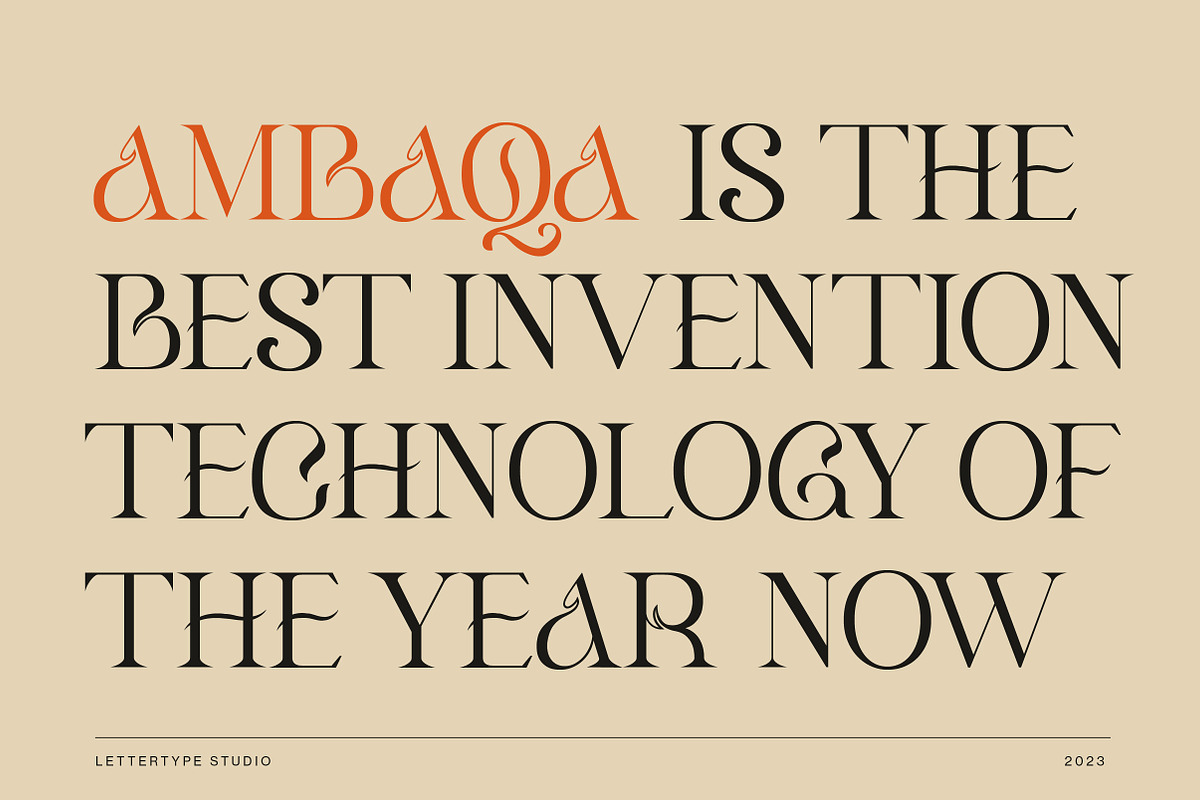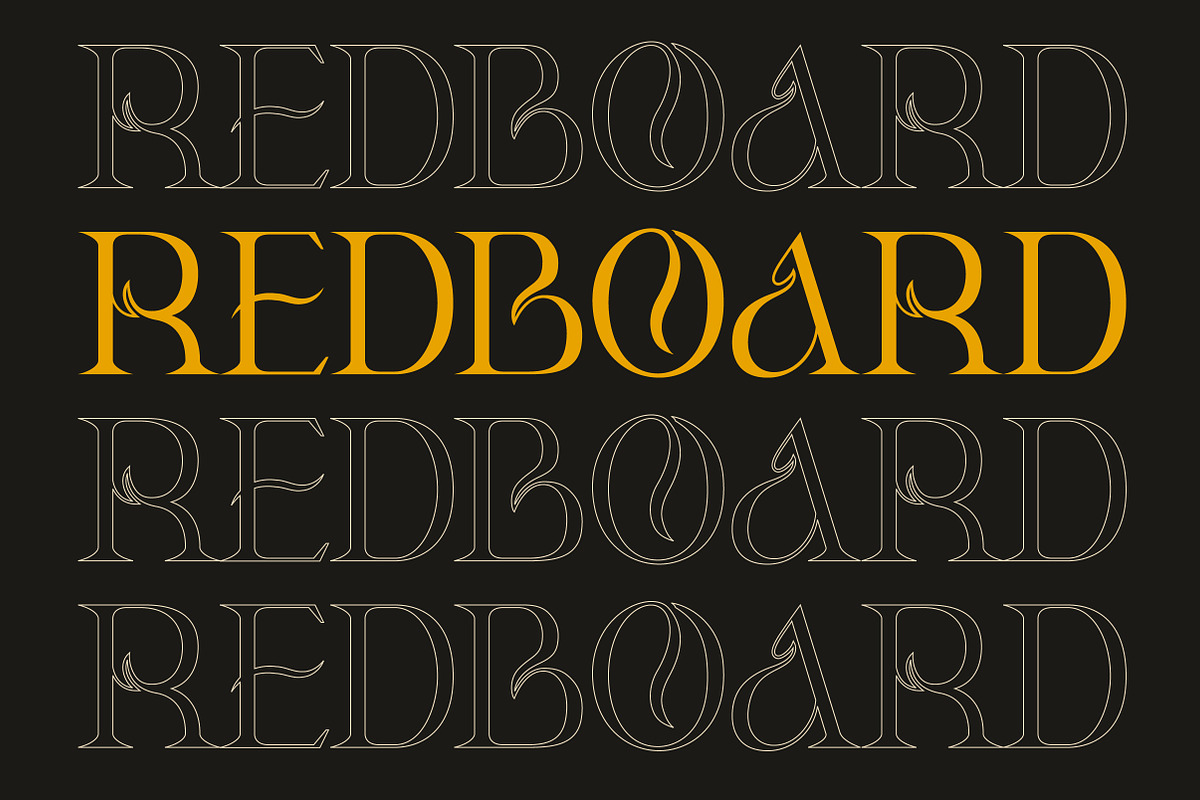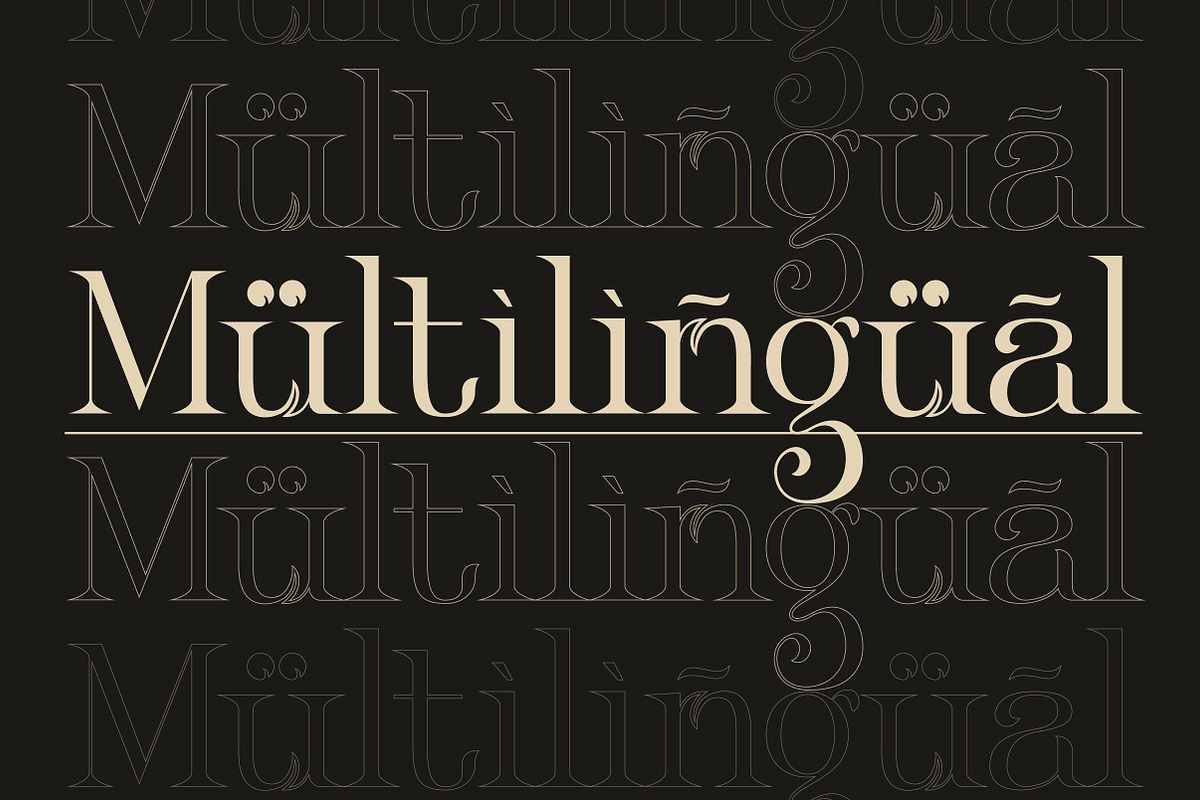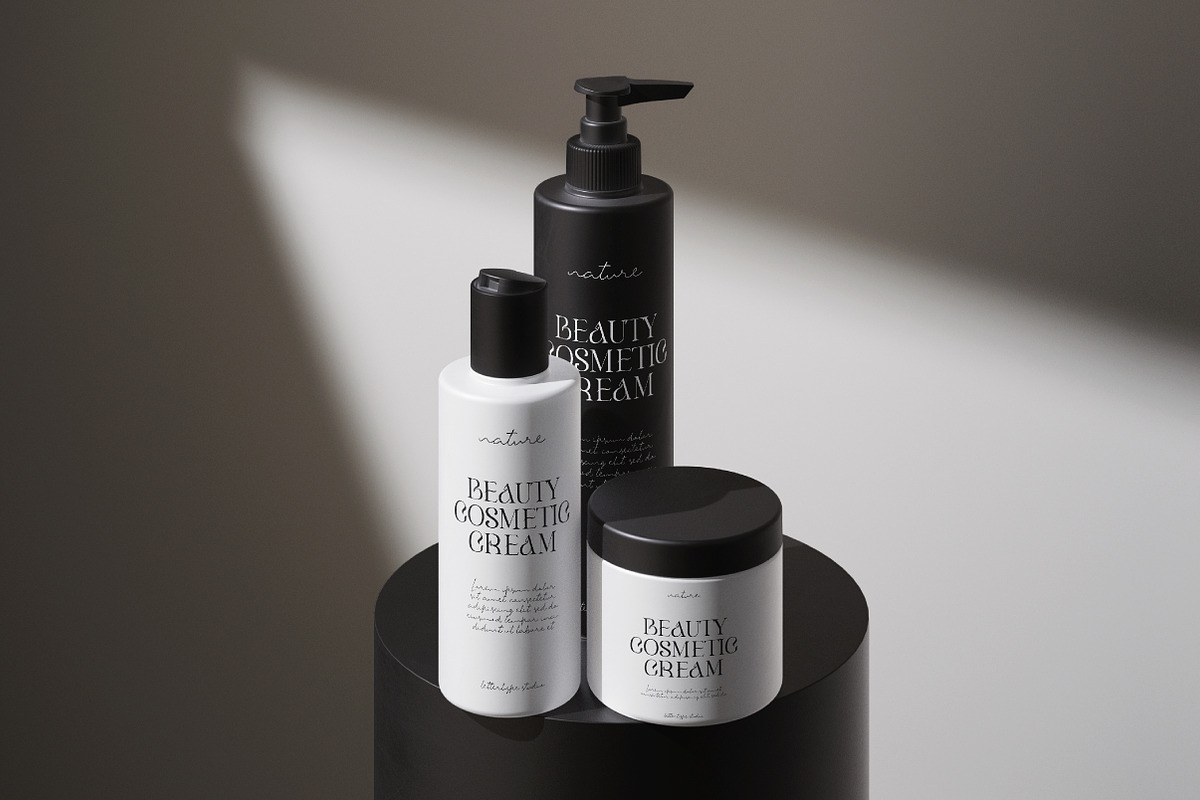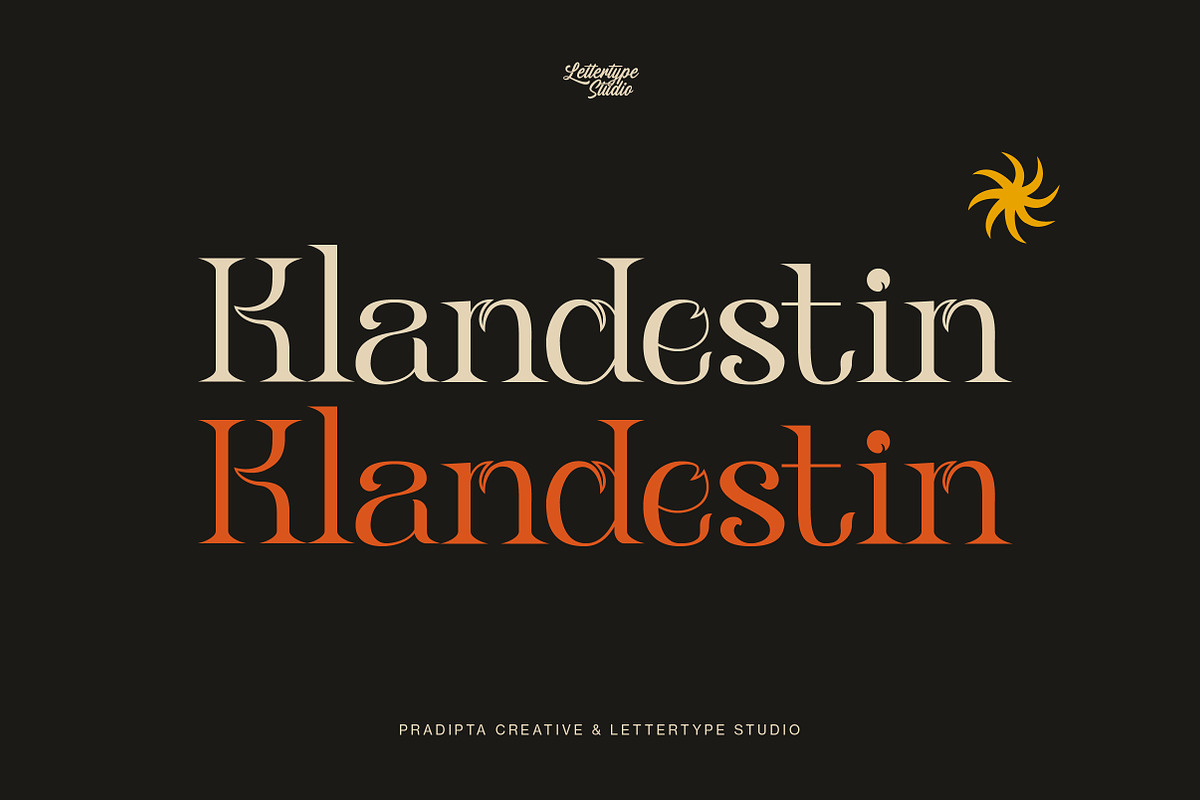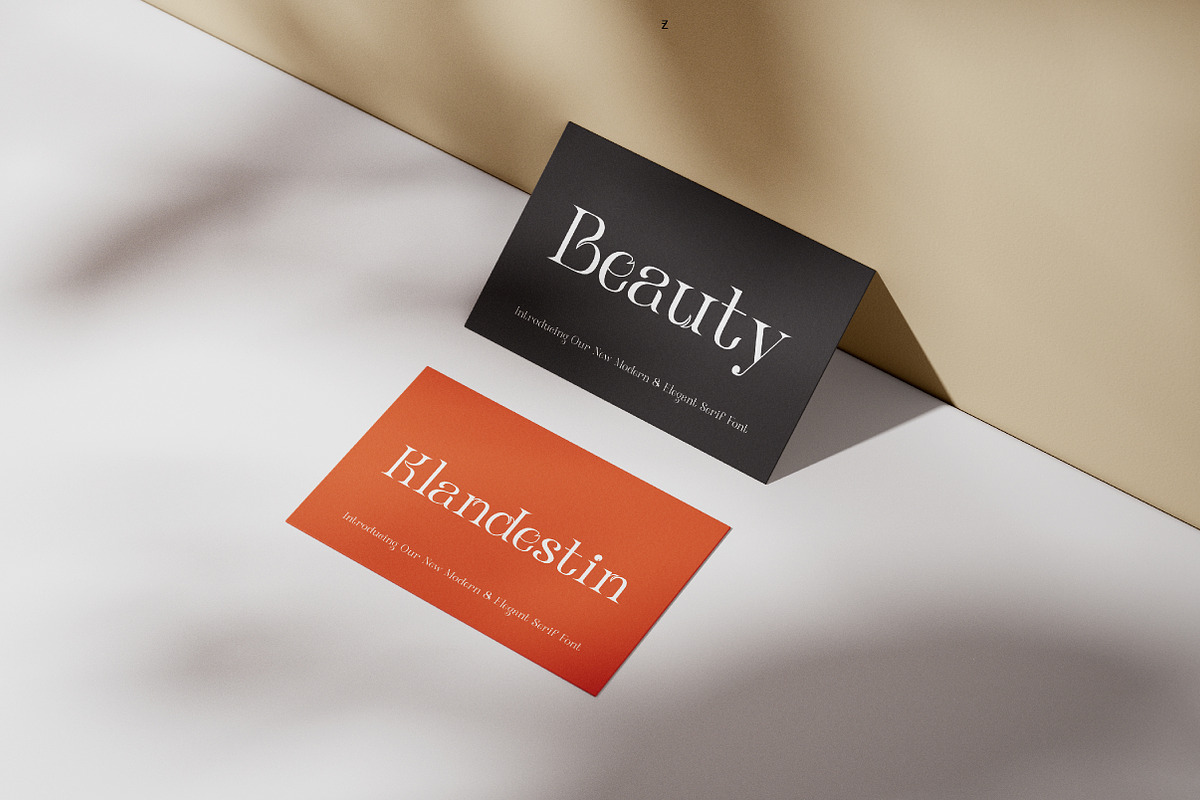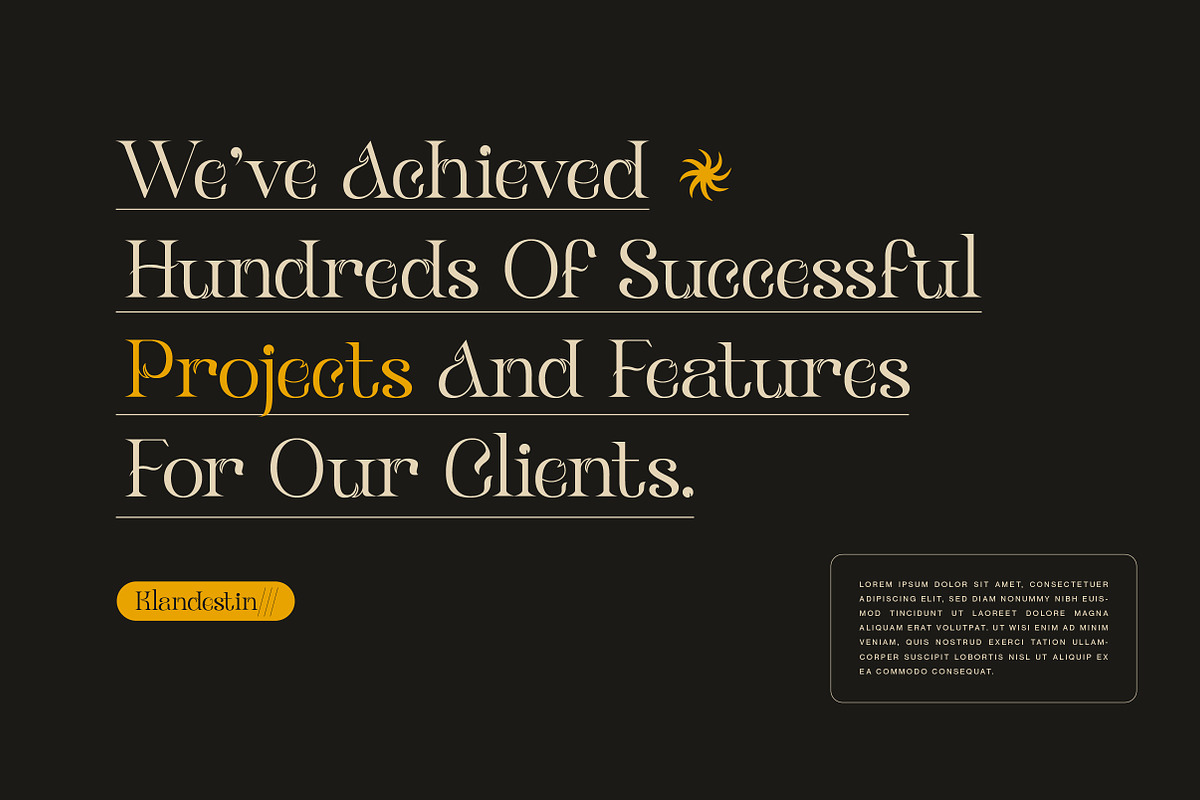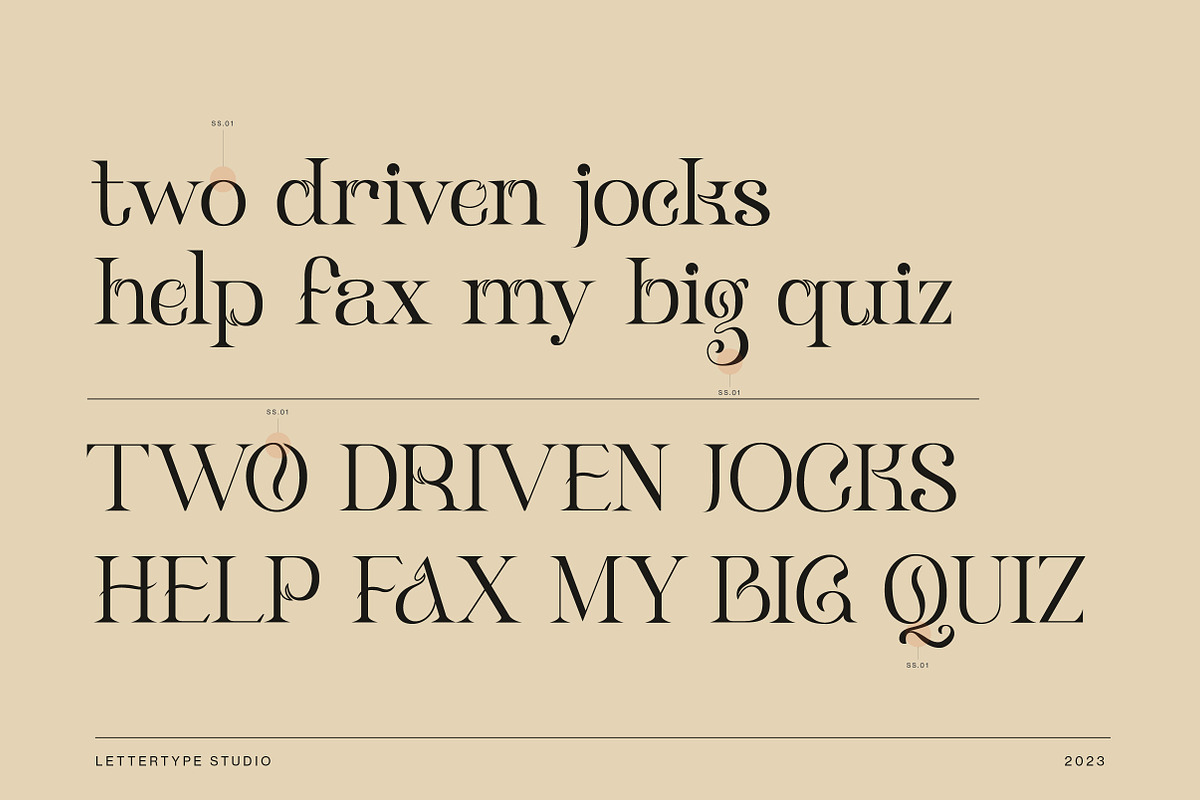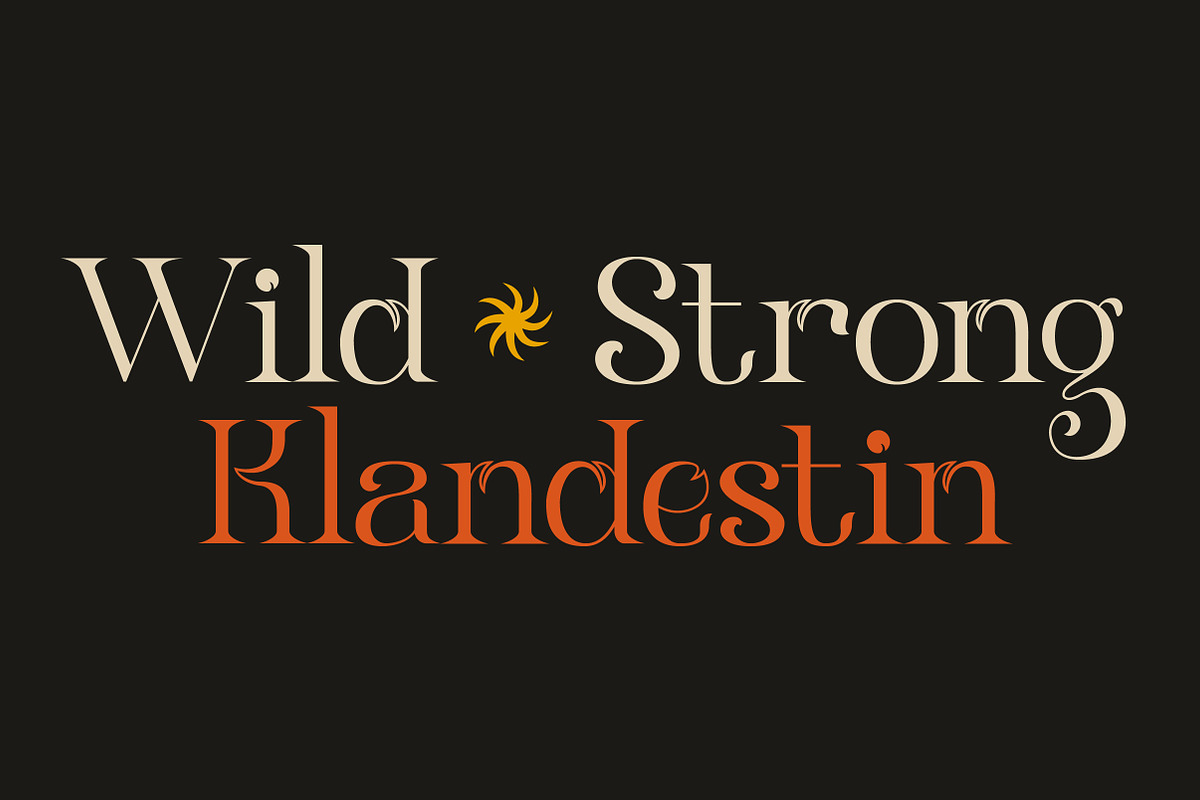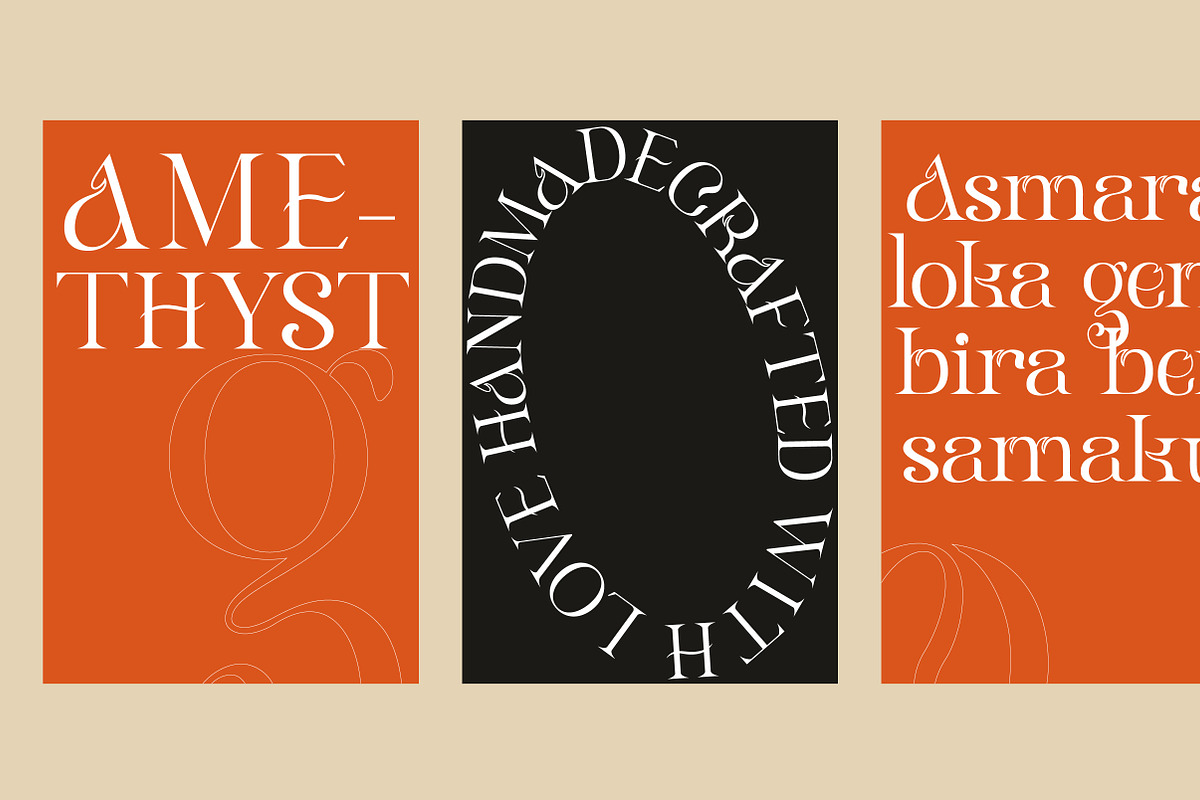
Klandestin Modern & Classical Serif
Klandestin was a modern, classic, unique feel serif font with a stand-out style.
This font will be perfect for your logo design, branding, clothing, signage, posters, wedding invitations, cosmetics or fashion and so much more!
Klandestin will help your project or brand have a luxurious, classic, modern, and stunning.
Klandestin Comes With:
- Lowercase, Uppercase, and Ligatures
- Tons of Stylistic Alternates
- Accented Characters (up to 188+ Glyphs)
- Klandestin (Regular)
- Multiple Languages Supported